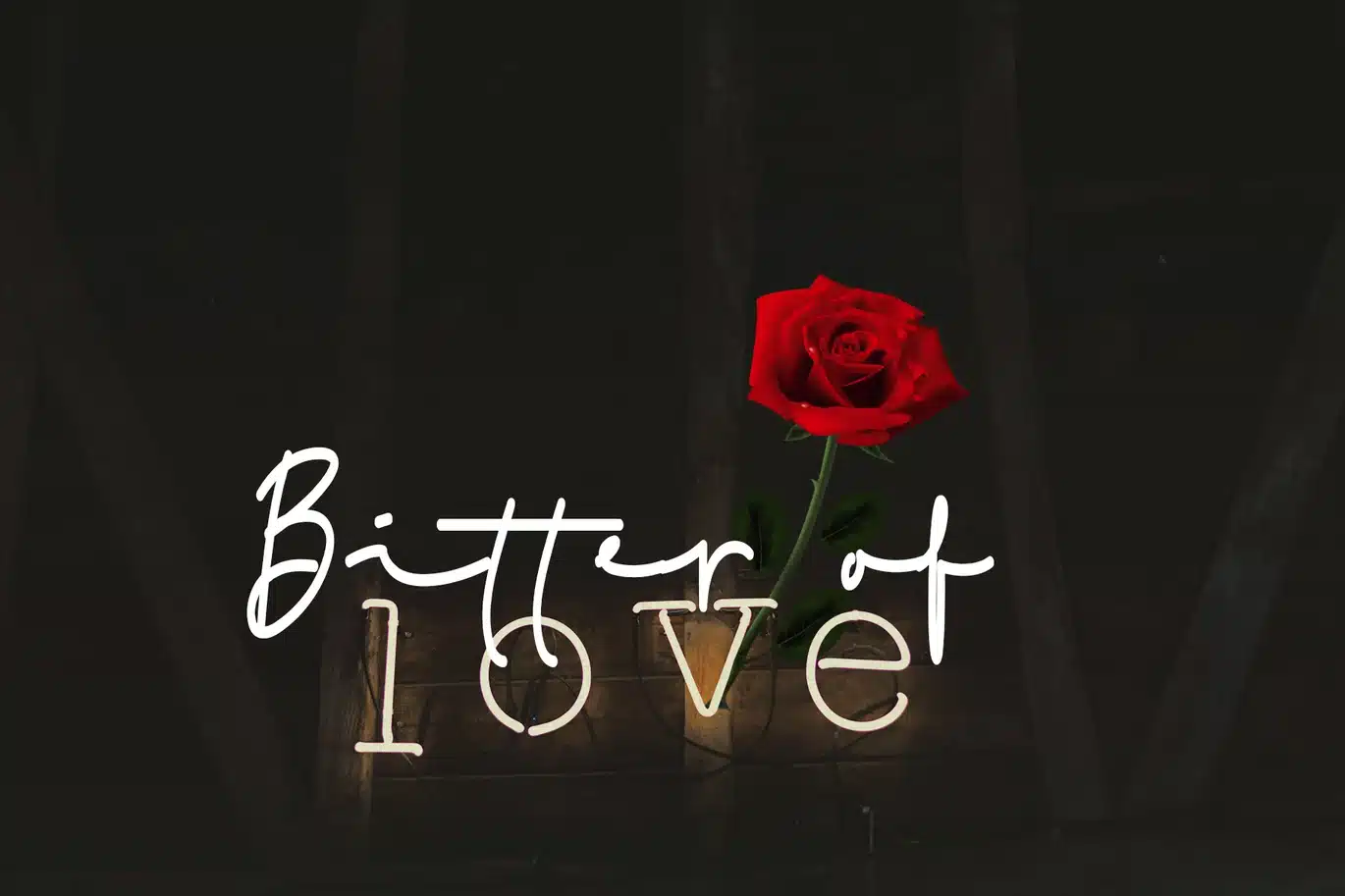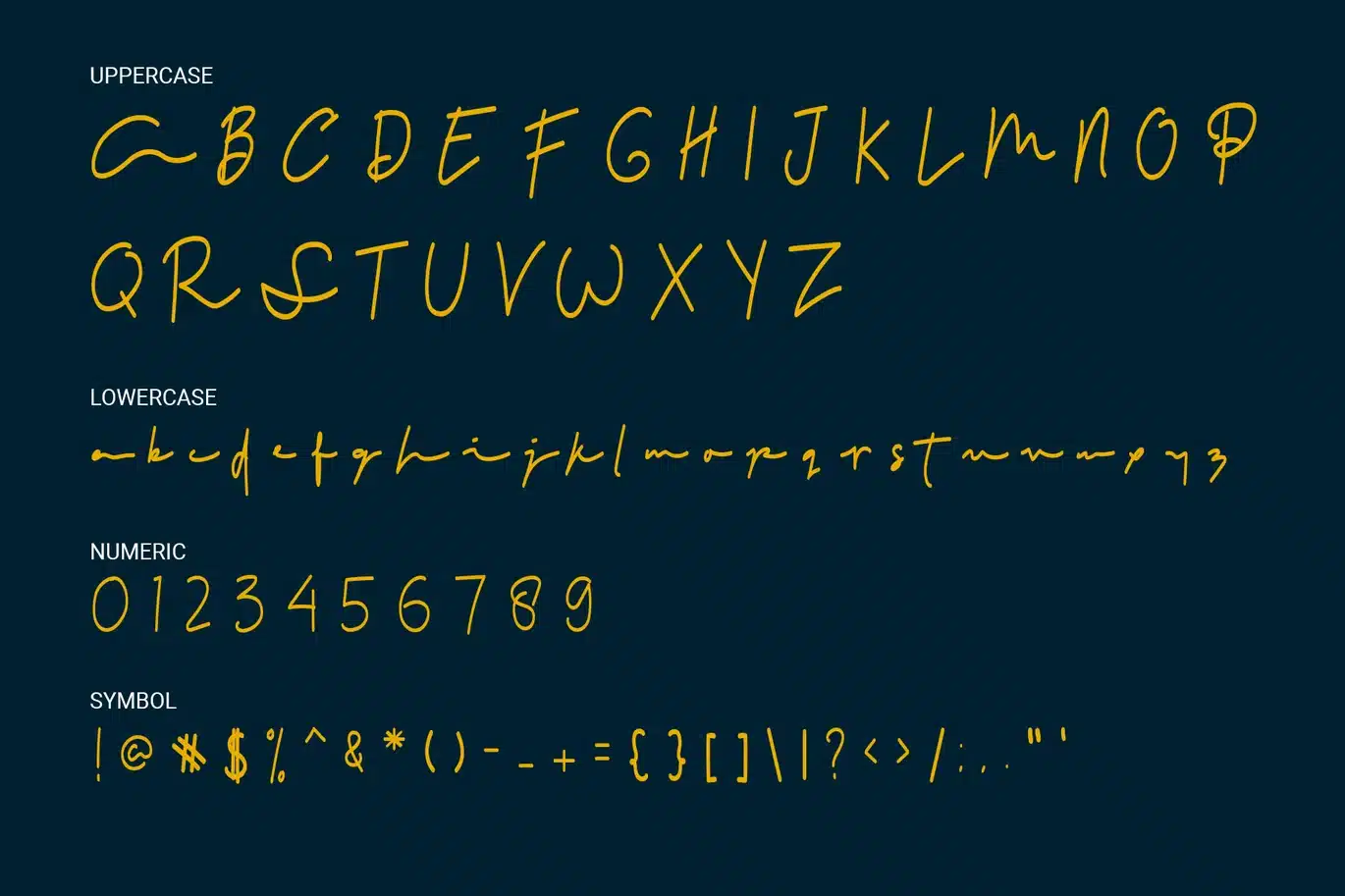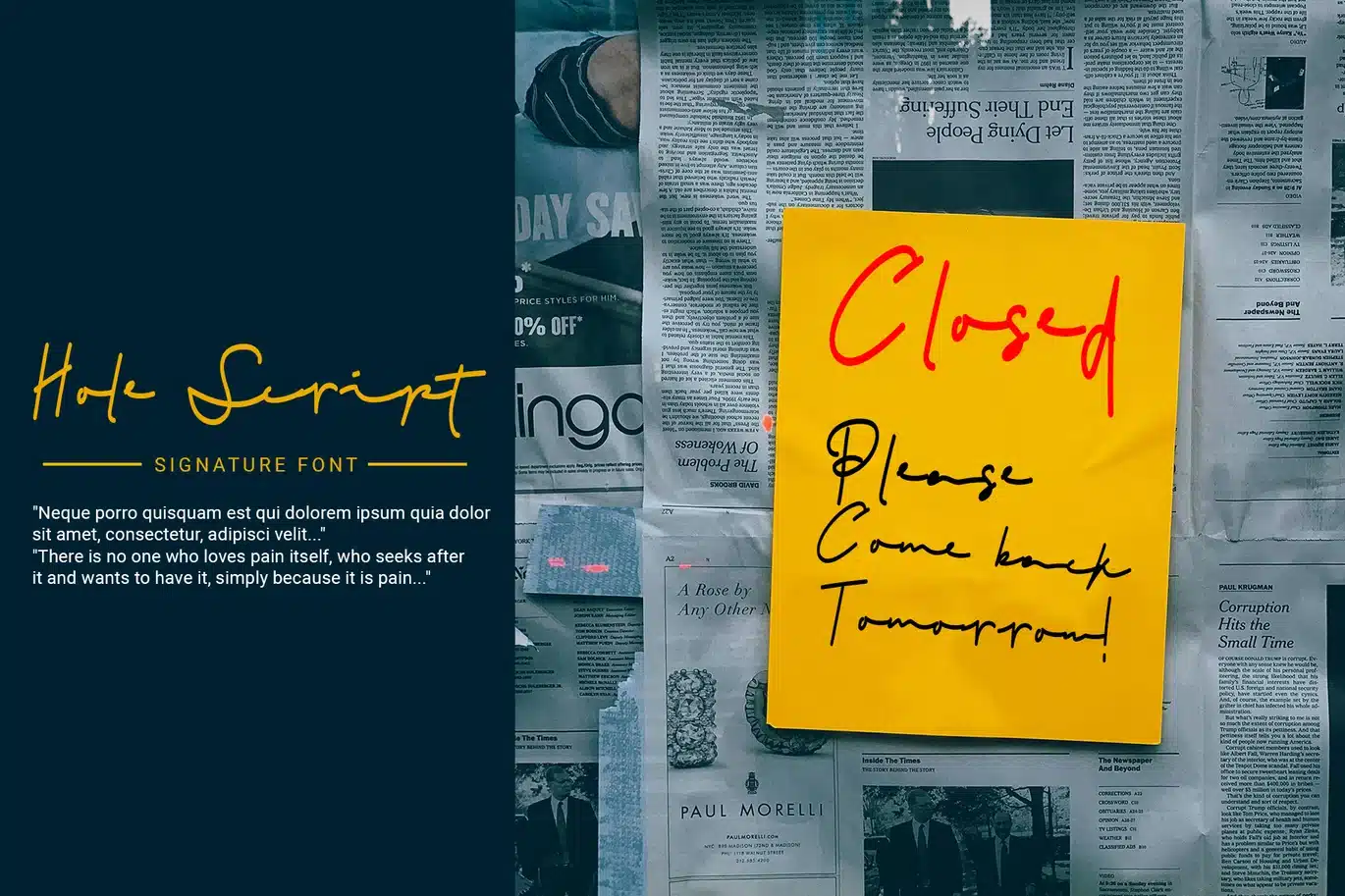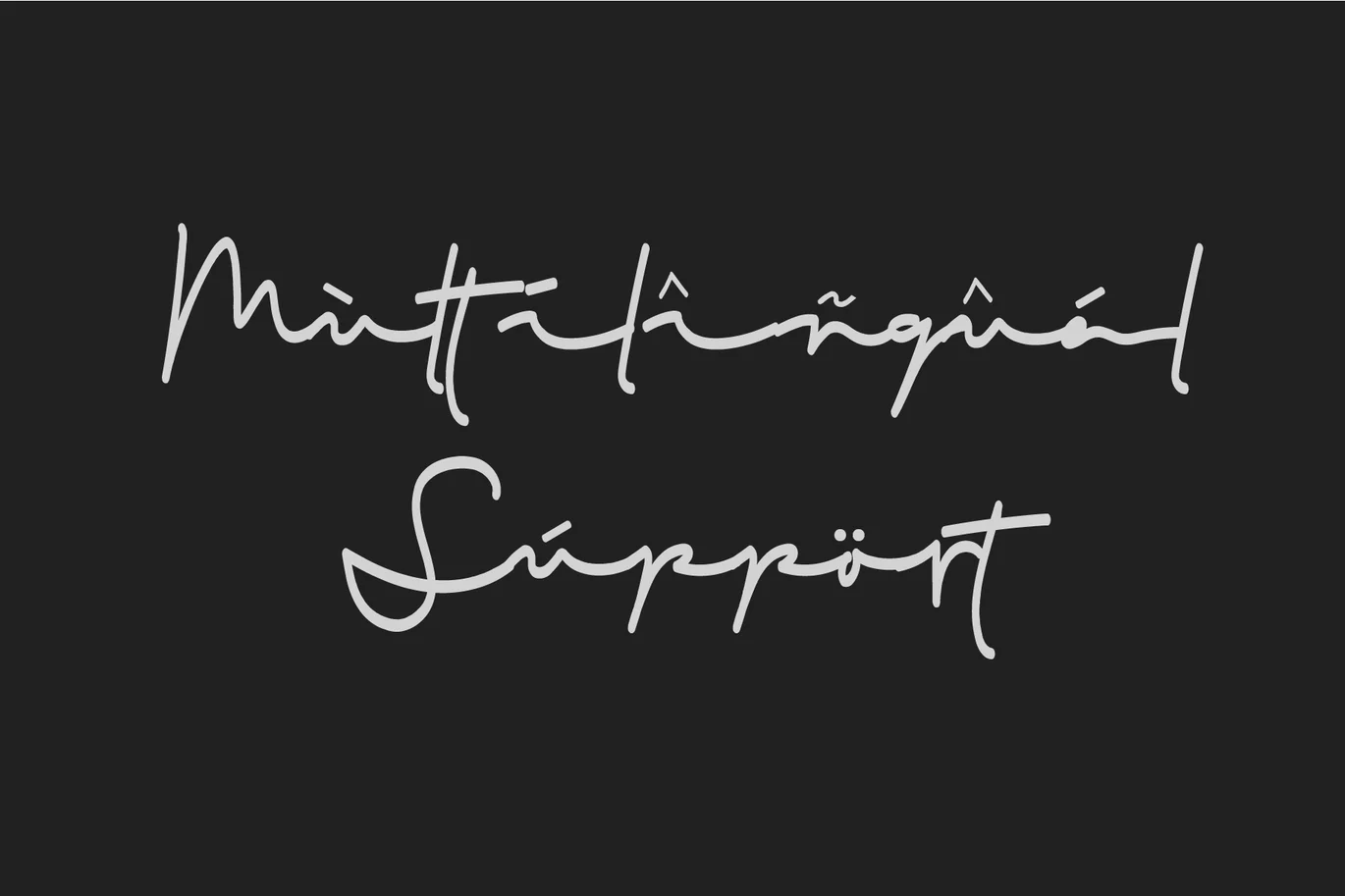
Hole script Font
Hole Script Font
This pair was inspired by the signature design that i saw on some coffee shop, It was crafted by hand specially to add natural handmade feeling in its brand identity than i make it clean with pentool.
Opentype features
Hole Script font has 169 character set included
Hole Script Font is very good looking in logo, labels, t-shirt prints, product packaging, invitations, advertising and others.